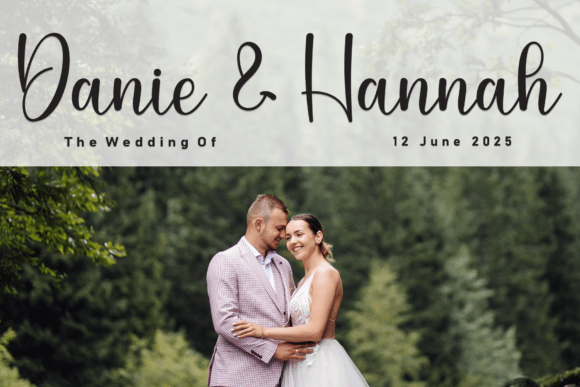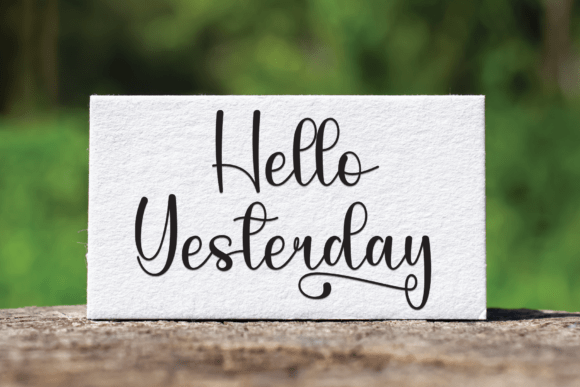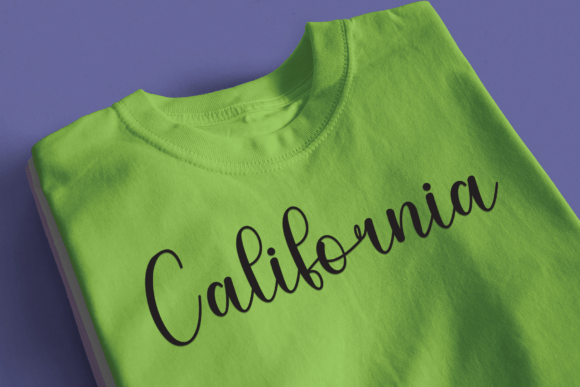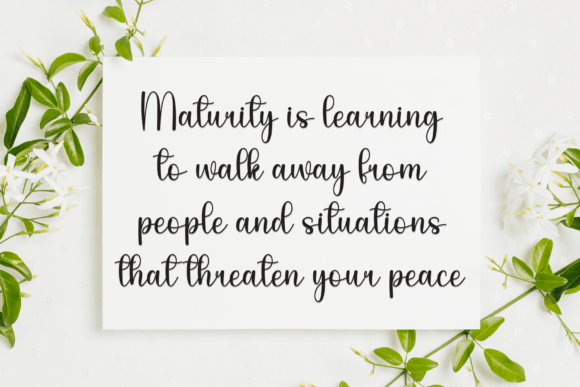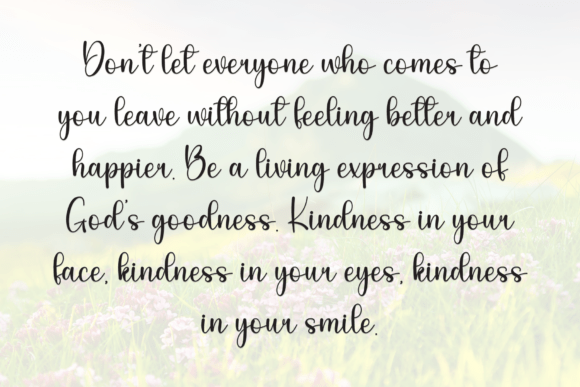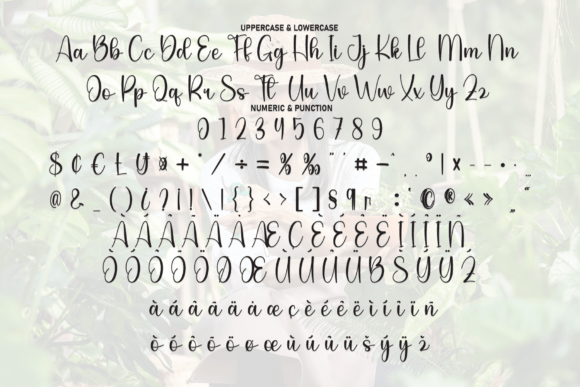
Gardening Font: Elevate Your Designs with Fresh Elegance and Delicate Charm
Are you a designer or crafter looking for a typeface that embodies the beauty of nature and the elegance of a handwritten script? Look no further than the Gardening Font. This stunning font is designed to bring a touch of fresh elegance and delicate charm to your projects, making it perfect for invitations, branding, and seasonal designs.
The Beauty of Gardening Font
Gardening Font is a stylish handwritten script font that radiates a sense of renewal and sophistication. Its flowing strokes and graceful curves evoke the feeling of a lush garden, perfect for spring and summer designs. The font’s delicate charm is sure to captivate your audience, adding a soft, personal touch to any project.
Perfect for Invitations and Branding
Whether you’re designing wedding invitations, business cards, or product labels, Gardening Font is the perfect choice. Its elegant and refined appearance makes it suitable for high-end brands and special occasions. The font’s unique character and charm will help your brand stand out, leaving a lasting impression on your customers.
Seasonal Designs Made Easy
Gardening Font is not just limited to invitations and branding. Its fresh and delicate feel makes it perfect for seasonal designs, such as Easter, Mother’s Day, or summer-themed projects. Add a touch of whimsy and charm to your designs with this beautiful font, sure to delight your audience.
Key Features of Gardening Font
- Handwritten Script Font: Gardening Font is a carefully crafted handwritten script font, giving it a personal and unique touch.
- Flowing Strokes and Graceful Curves: The font’s flowing strokes and graceful curves evoke a sense of elegance and sophistication.
- Delicate Charm: Gardening Font’s delicate charm is sure to captivate your audience, adding a soft, personal touch to any project.
- Renewal and Elegance: The font’s design radiates a sense of renewal and elegance, perfect for spring and summer designs.
In conclusion, Gardening Font is a beautiful and elegant handwritten script font that is sure to elevate your designs. Its fresh elegance and delicate charm make it perfect for invitations, branding, and seasonal designs. With its flowing strokes and graceful curves, Gardening Font is the perfect choice for designers and crafters looking to add a touch of sophistication and whimsy to their projects.